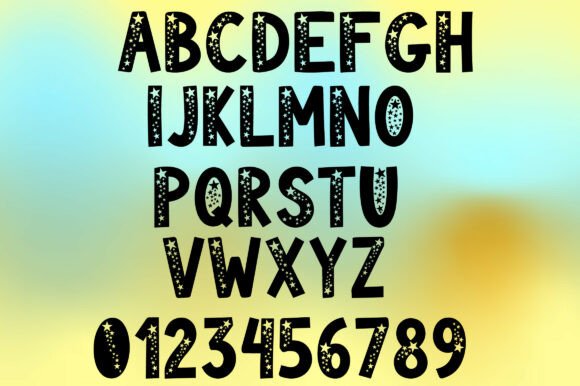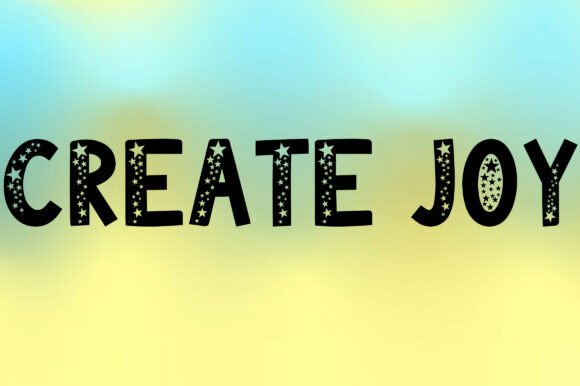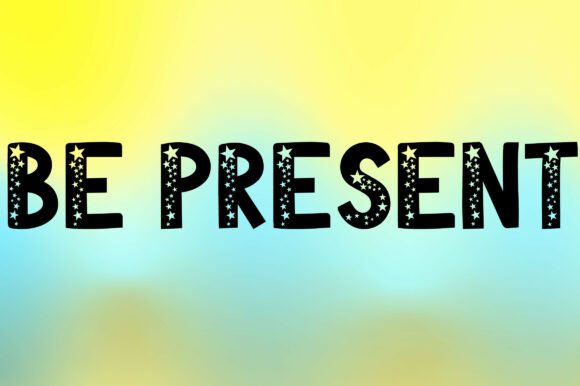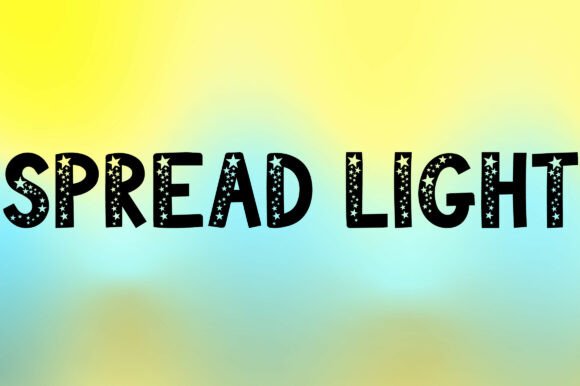
The Magical World of Fonfon Font: A Designer’s Dream Come True
Have you ever been in the middle of a design project, and suddenly, you’re stuck on finding the perfect font? I certainly have! It was a typical Wednesday evening when I received a last-minute request from a client asking for a logo design that screamed “whimsy” and “magic.” As I scrolled through my font library, I stumbled upon FONFON Decorative Stars Style Fonts. And just like that, my design woes disappeared! ✨
An Honest Review of Fonfon Font
- ✨ The playful, decorative style that adds a touch of charm and creativity to any project
- ✅ The font’s ability to evoke a sense of wonder and magic, perfect for kids’ designs and projects
- 🔥 The endless creative possibilities it offers, making it ideal for logos, branding, posters, and more
- 📚 The inclusion of uppercase English letters A–Z and numbers 0–9, providing a solid foundation for various design needs
While FONFON Decorative Stars Style Fonts is an amazing typeface, there are a few things to keep in mind: 🤔
- ⚠️ Limited character set: As mentioned earlier, the font only features uppercase English letters and numbers, which might limit its use in certain projects.
- ⚠️ Potential legibility issues: The decorative style, while beautiful, might make it challenging to read in smaller sizes or at a distance.
- Experiment with the font’s OpenType features, such as ligatures and stylistic alternates, to add more personality to your design.
The Backstory of Fonfon Font
FONFON Decorative Stars Style Fonts was inspired by the magical world of celestial bodies and the beauty of sparkling stars. The font’s creator aimed to capture the essence of wonder and imagination, crafting a typeface that would bring joy and creativity to designers and their projects. 🌠
Q: Is Fonfon Font suitable for body text?
A: While FONFON Decorative Stars Style Fonts is a beautiful typeface, it’s not ideal for body text due to its decorative style and potential legibility issues. It’s best used for headlines, titles, or short paragraphs. 📝
Q: Does Fonfon Font support non-English languages?
A: FONFON Decorative Stars Style Fonts primarily features uppercase English letters and numbers. If you need to use the font for non-English languages, you may encounter limitations. It’s best to check the font’s character set and compatibility before use. 🌎